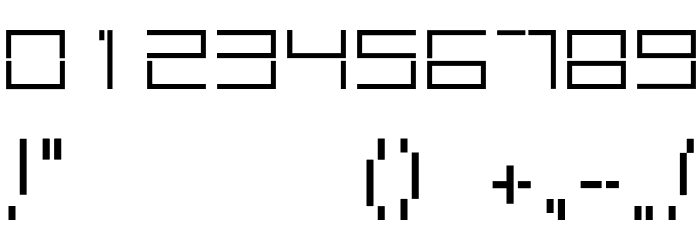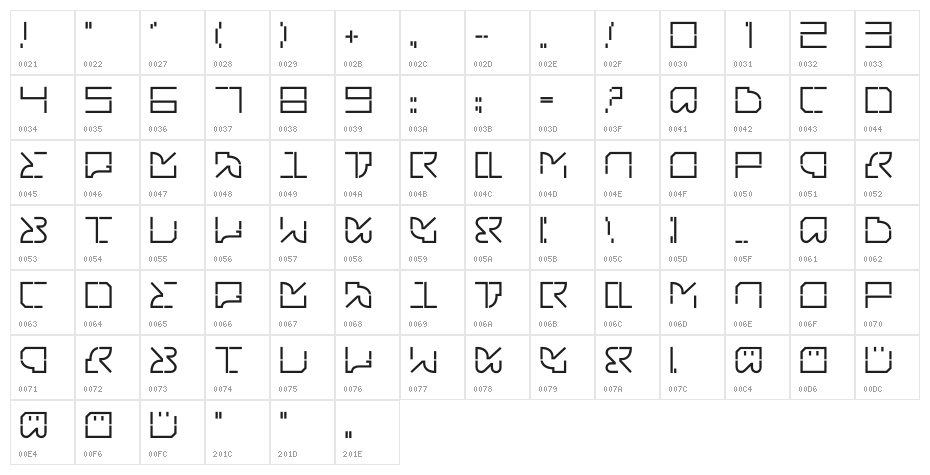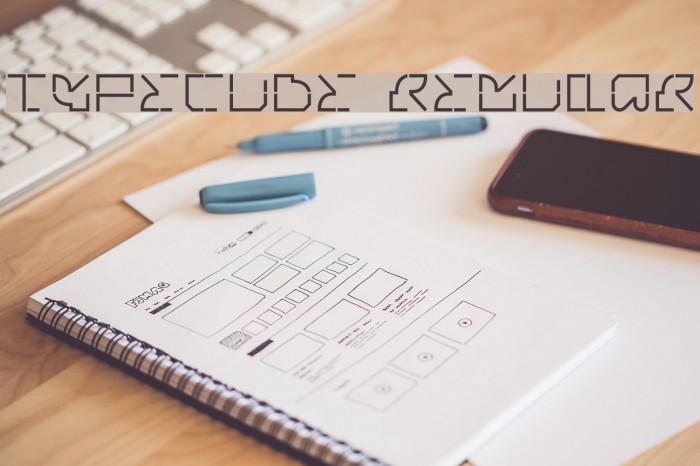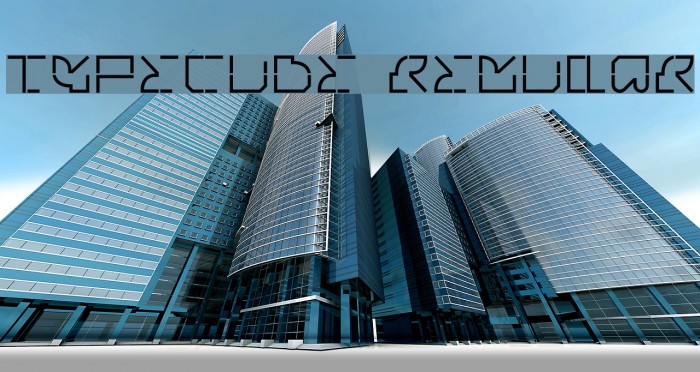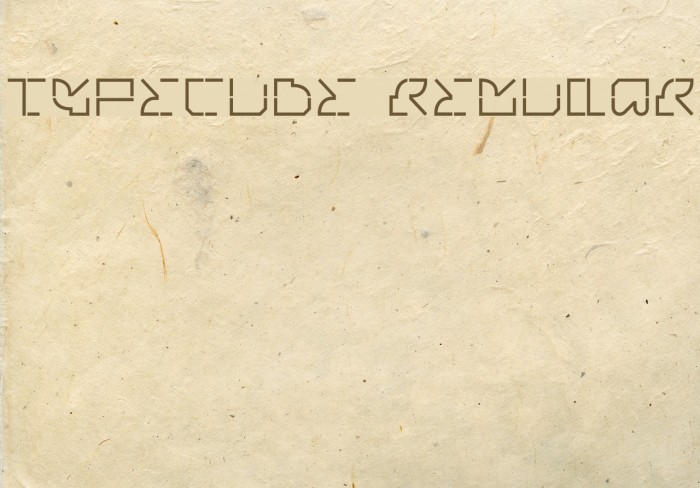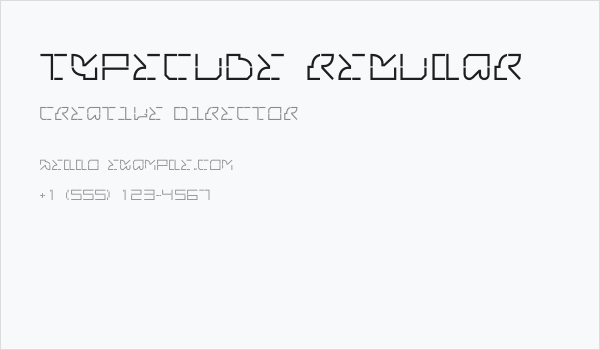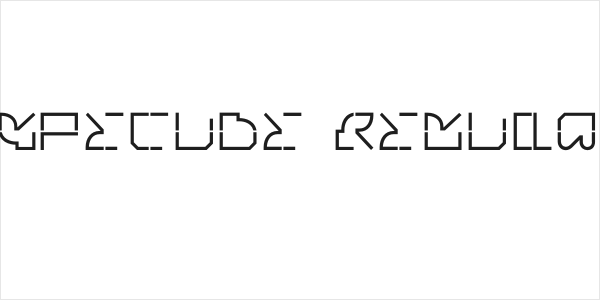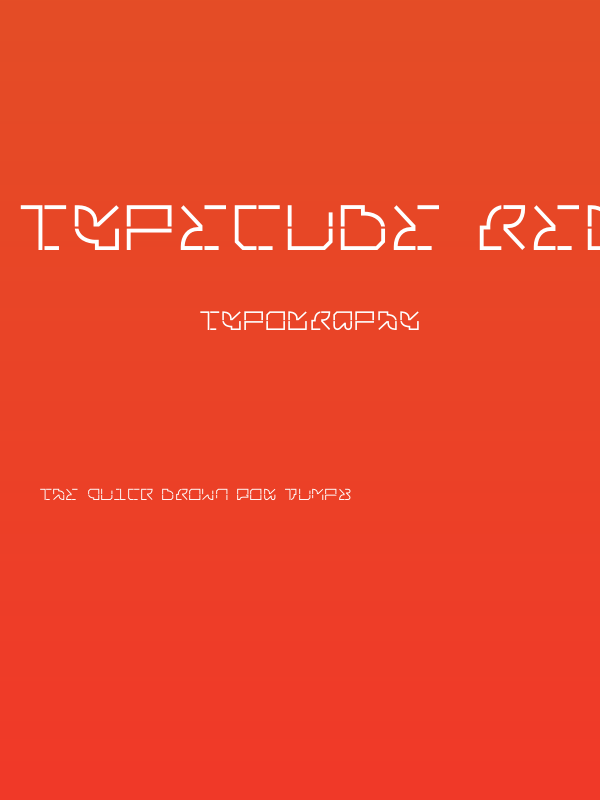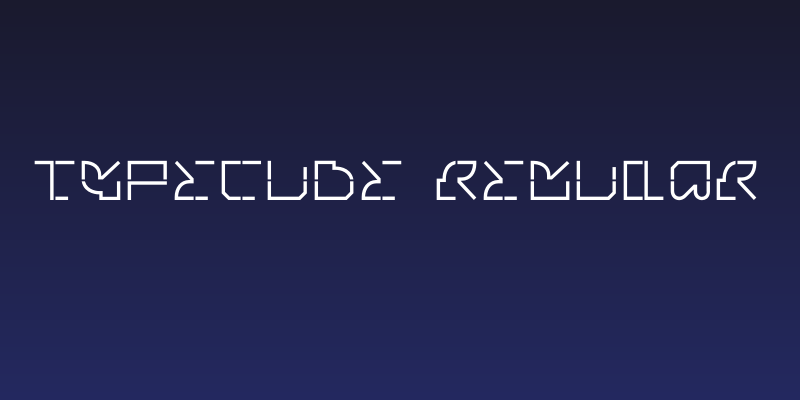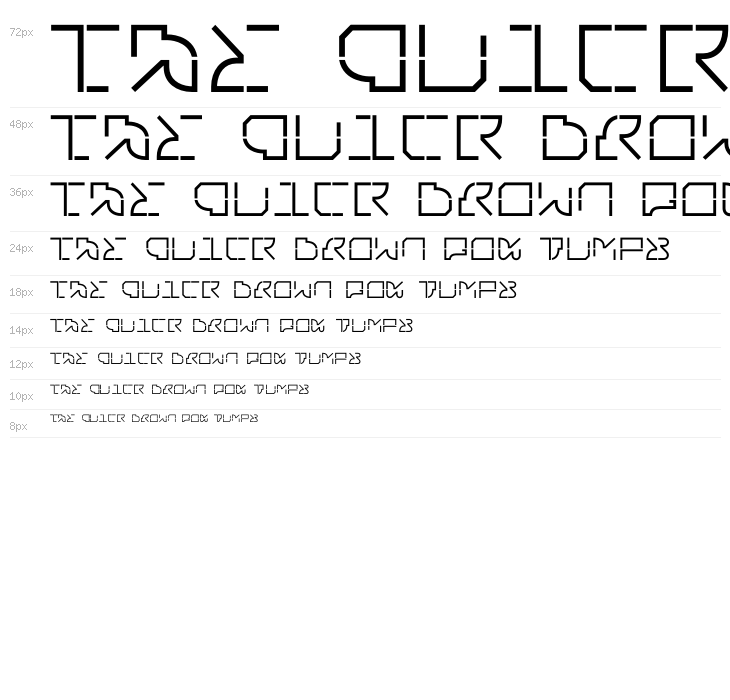
typecube regular Font
typecube regular Description
This font exhibits a futuristic and geometric design, characterized by its angular and block-like structure. Each character is composed of straight lines and sharp angles, creating a sense of precision and modernity. The uppercase and lowercase letters maintain a consistent style, with a unique approach to letterforms that emphasizes symmetry and balance. The numerals and special characters follow the same design principles, ensuring uniformity across all glyphs. The font's distinct appearance makes it suitable for projects that require a contemporary and tech-inspired aesthetic.
| Proposed Projects | Ideal for tech branding, sci-fi posters, video game interfaces, and modern digital art. |